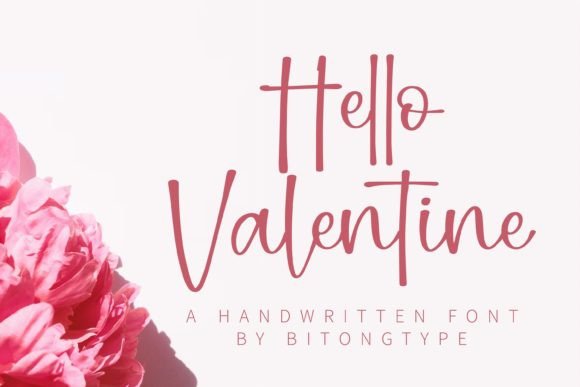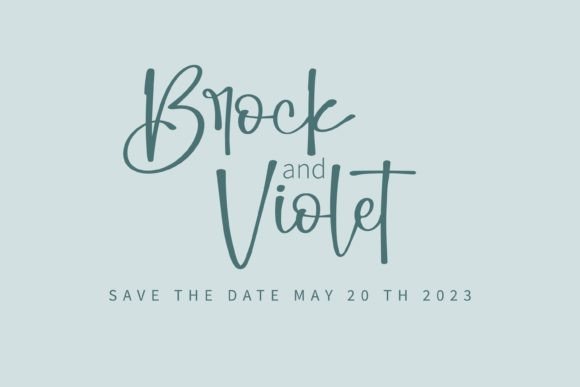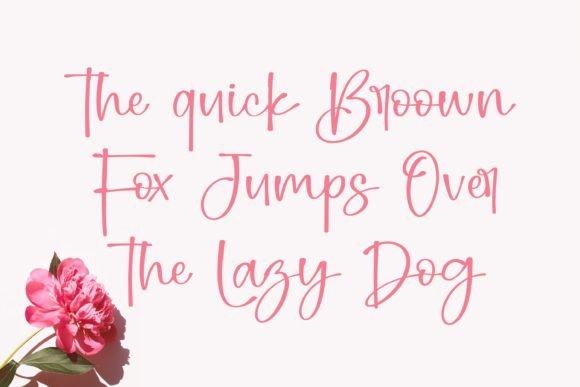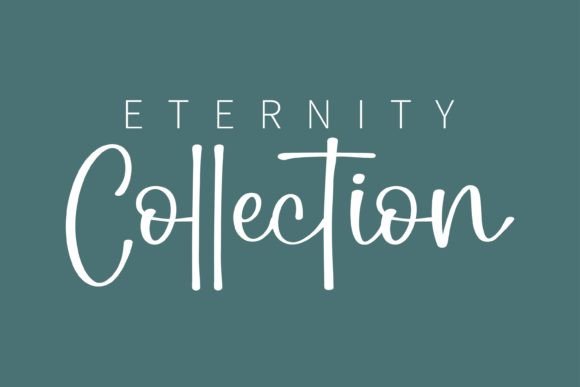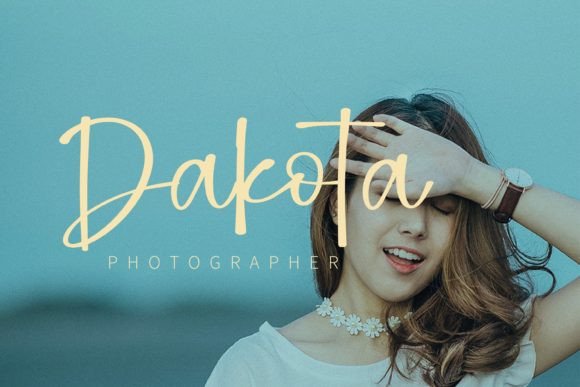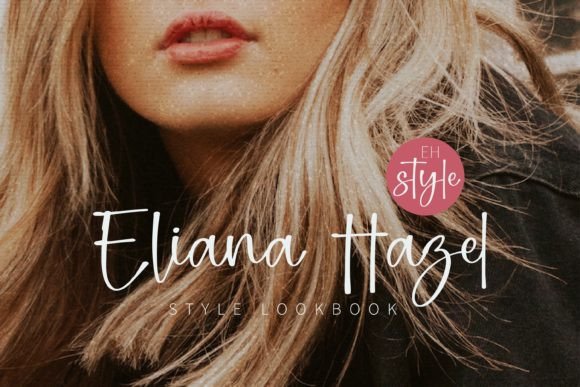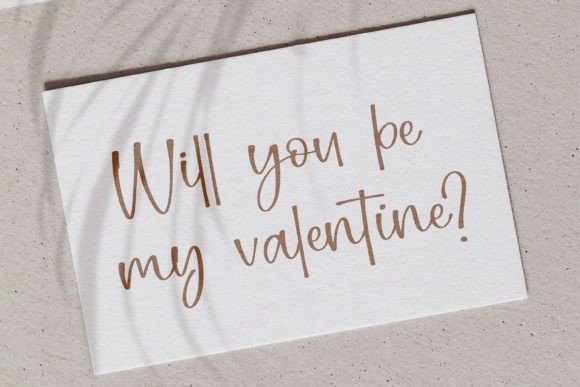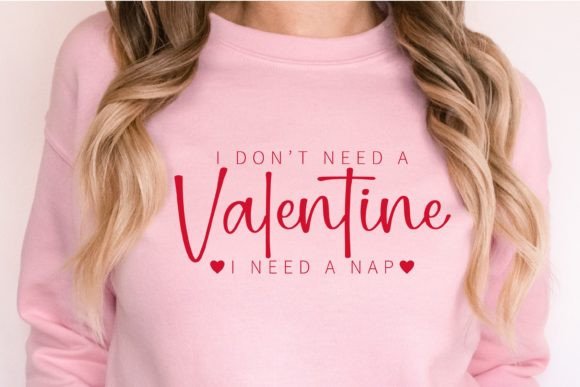
Hello Valentine Font
Hello Valentine is an authentic handwritten font with a romantic touch. Masterfully designed to become a true favorite, this font has the potential to bring each of your creative ideas to the highest level!